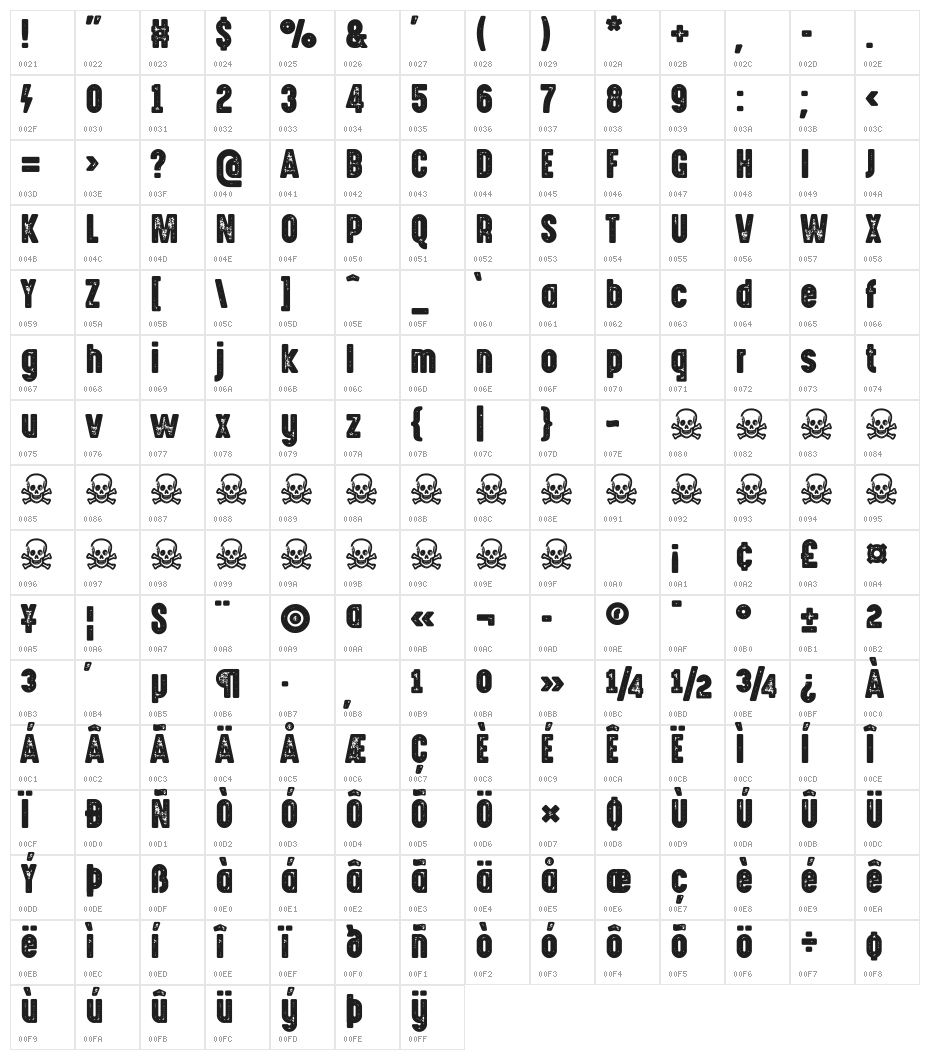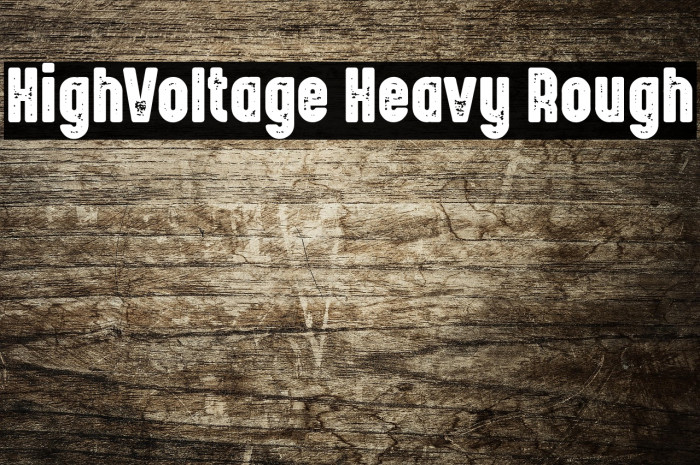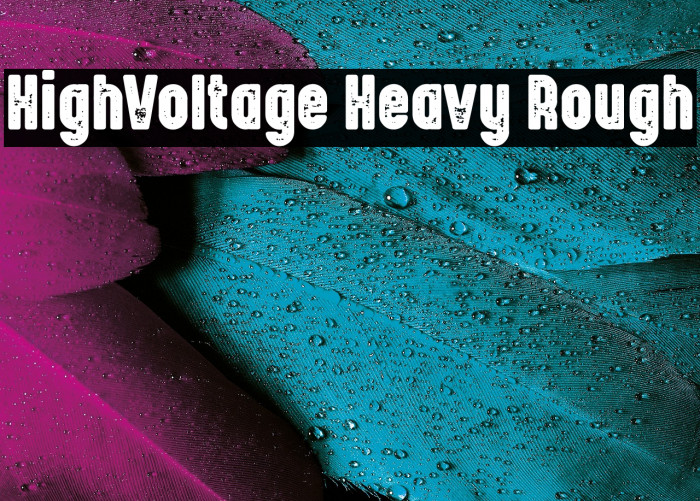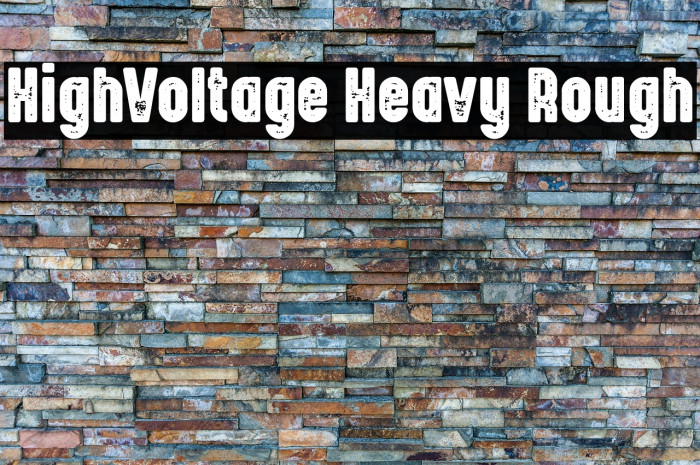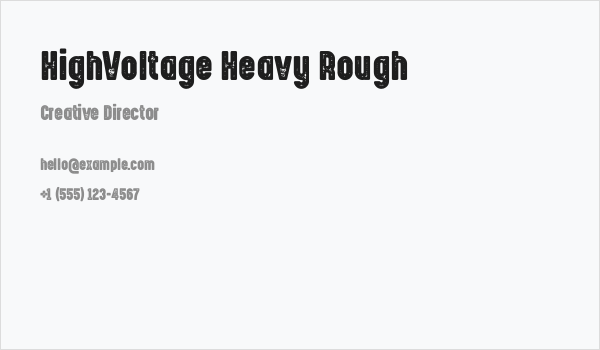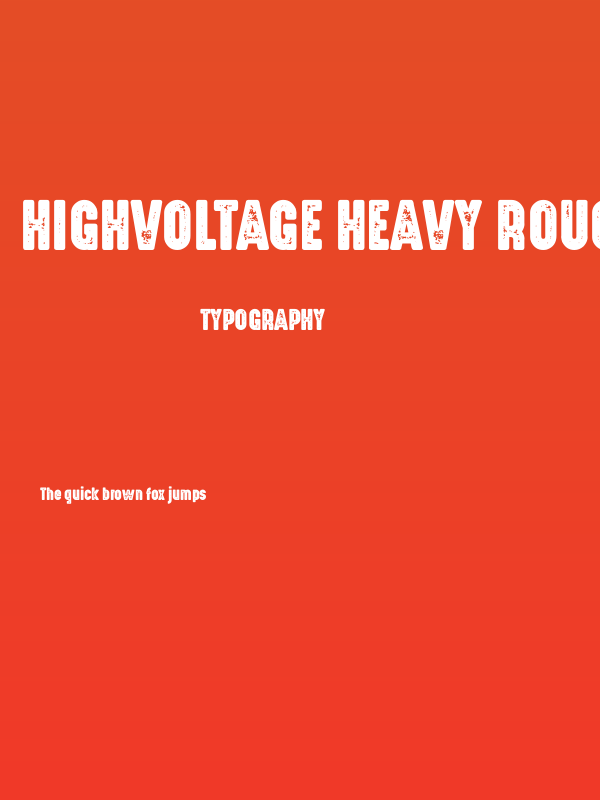
HighVoltage Heavy Rough Font
HighVoltage Heavy Rough Description
This font features a bold and heavy design with a rough, distressed texture that gives it a rugged and industrial feel. The uppercase and lowercase letters are uniformly thick, with a consistent weight that emphasizes strength and solidity. The numbers and special characters maintain this robust style, making them stand out with a gritty, worn appearance. The font's rough texture adds a vintage or grunge aesthetic, ideal for projects that require a bold statement. Its strong presence is suitable for attention-grabbing headlines or impactful logos.
| Overall Style | Vintage, Industrial |
| Proposed Projects | Ideal for posters, logos, album covers, and any design requiring a bold, vintage, or industrial aesthetic. |